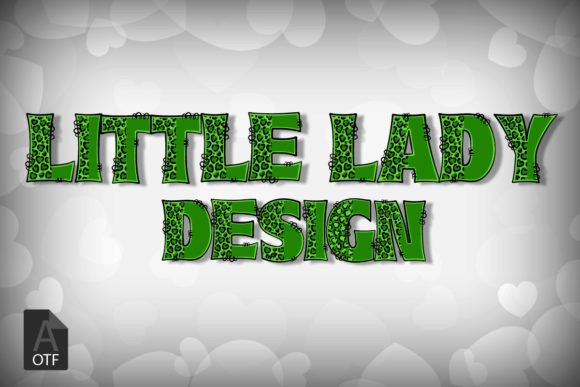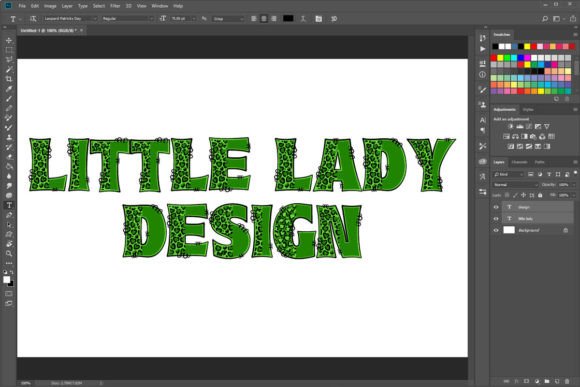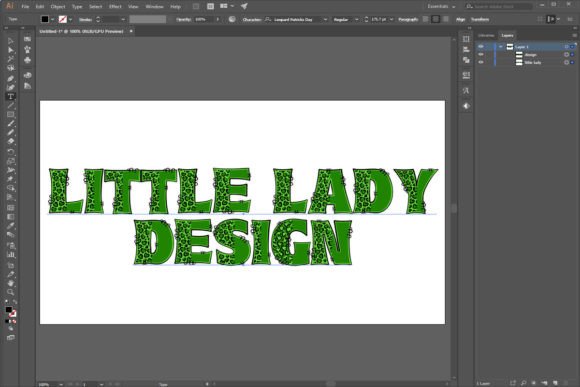
Introduction to Leopard Patrick’s Day Font
Leopard Patrick’s Day is a fun and festive color font.
This font is eye-catching and highly detailed Fall in love with it and bring your projects to the highest levels.
Key Features of Leopard Patrick’s Day Font